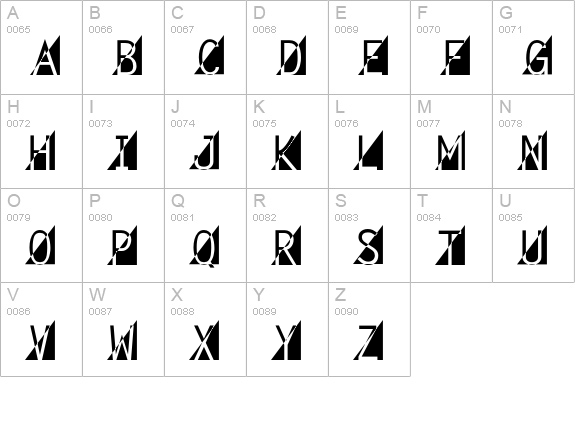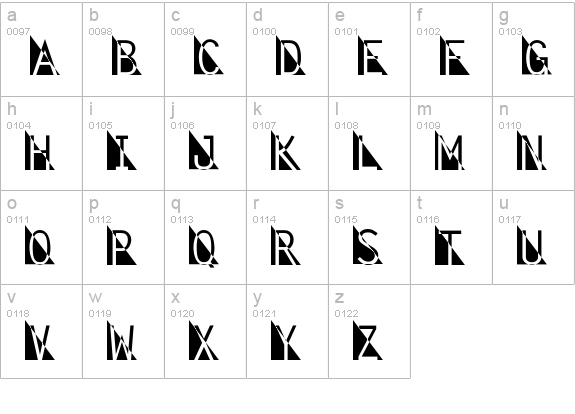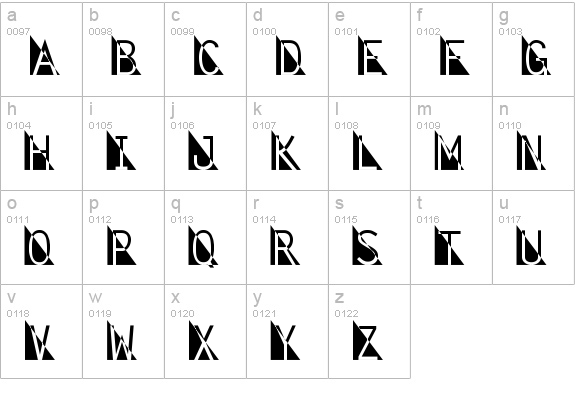
Fantomet1 Font Details
Fantomet1 is a stylish and modern font that exudes confidence and sophistication. With its sleek lines and elegant curves, this font is sure to make your designs stand out. Whether you're creating a logo, a poster, or a website, Fantomet1 is the perfect choice to add a touch of class to your project. The best part is that Fantomet1 is completely free to download! You can easily access this gorgeous font at FontsMarket.com and start using it in your designs right away. Don't miss out on the opportunity to elevate your work with this stunning typeface. Download Fantomet1 today and let your creativity soar!